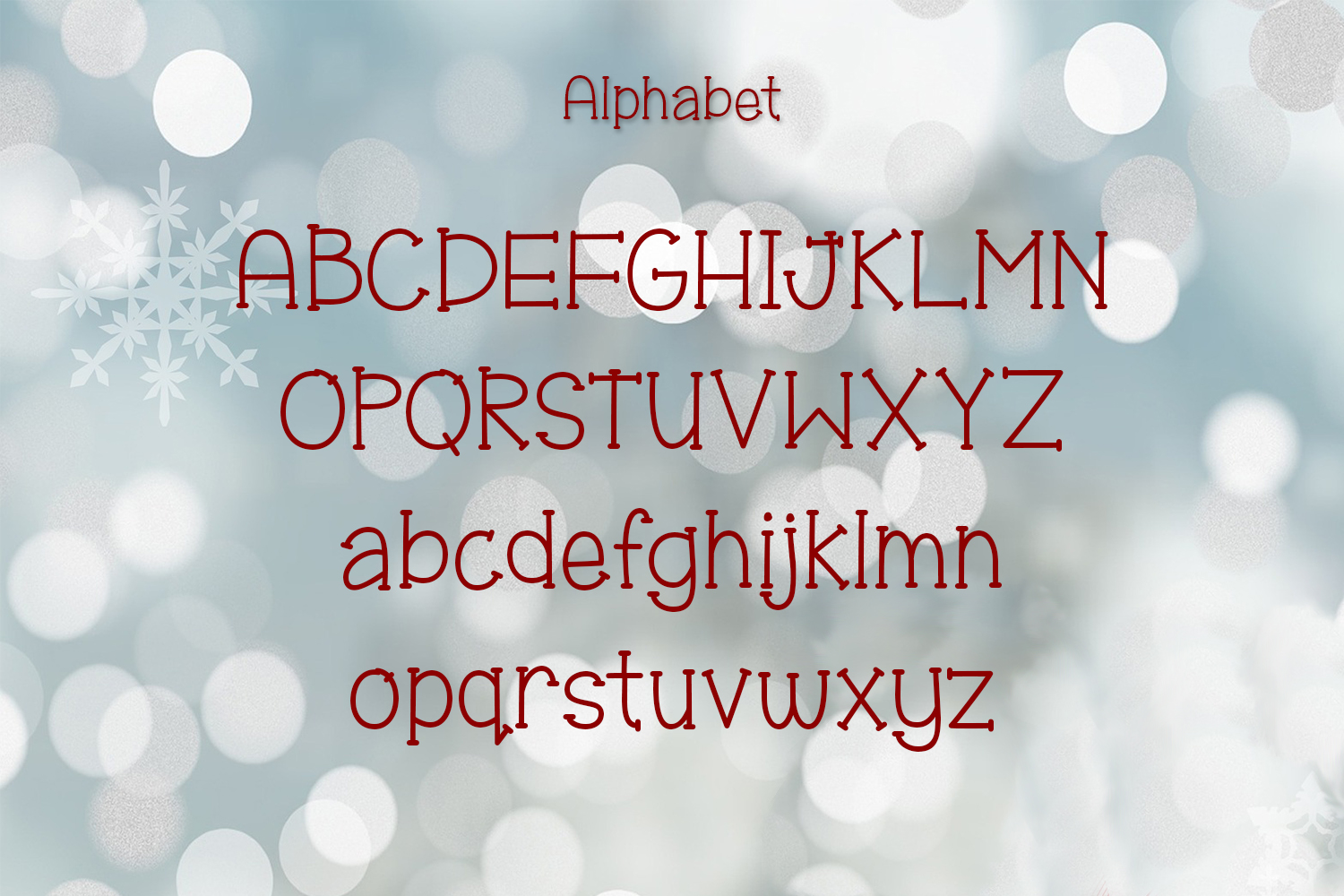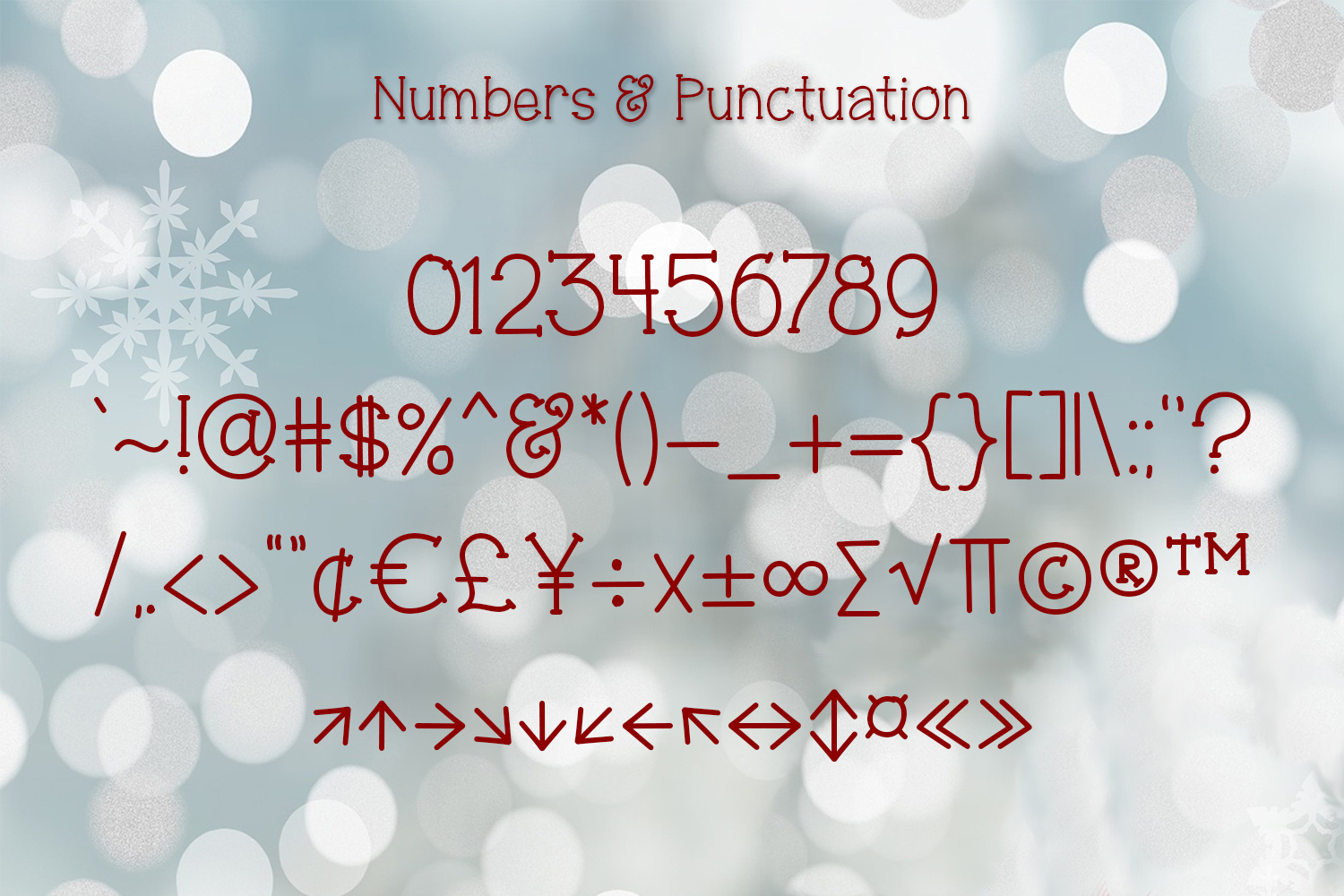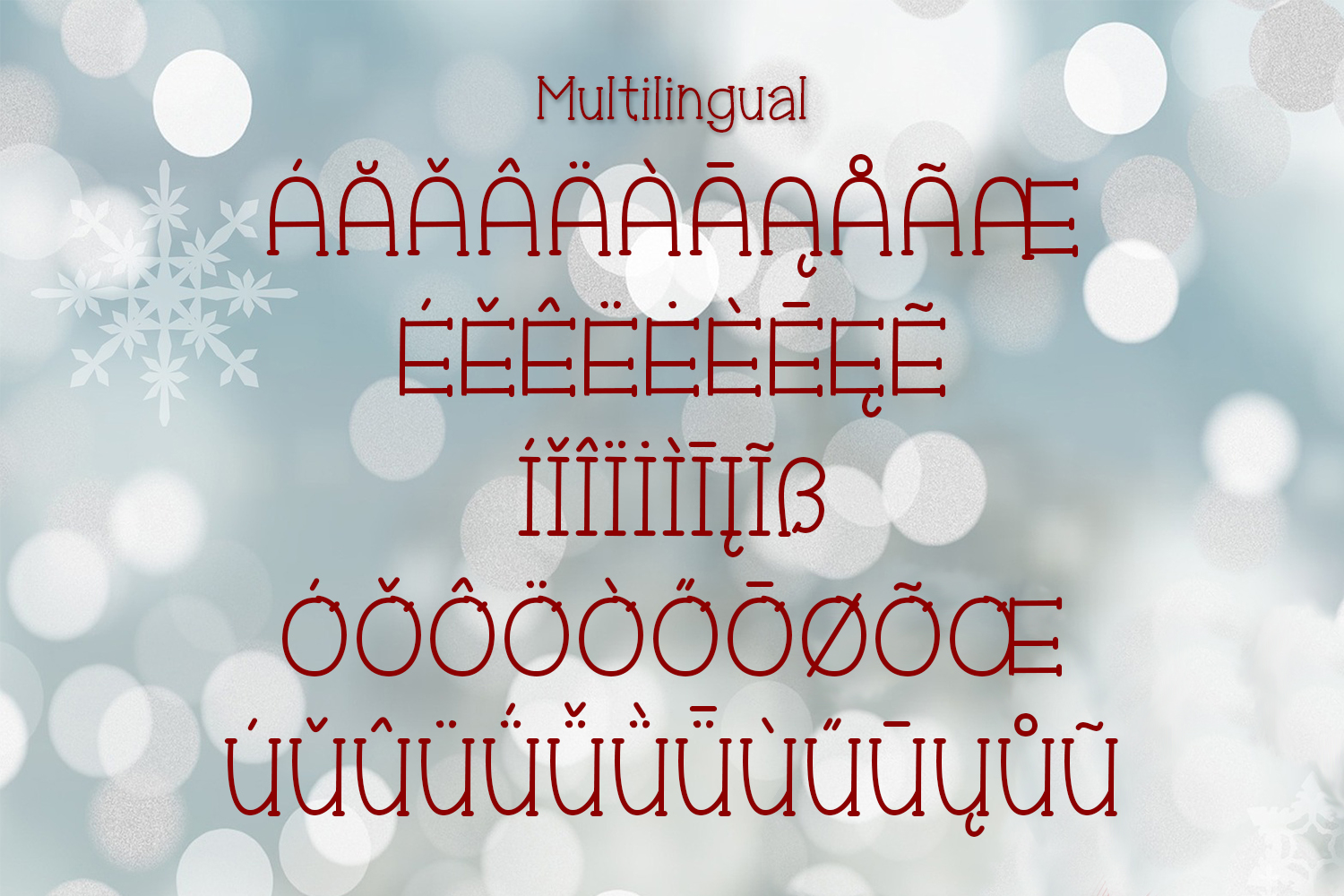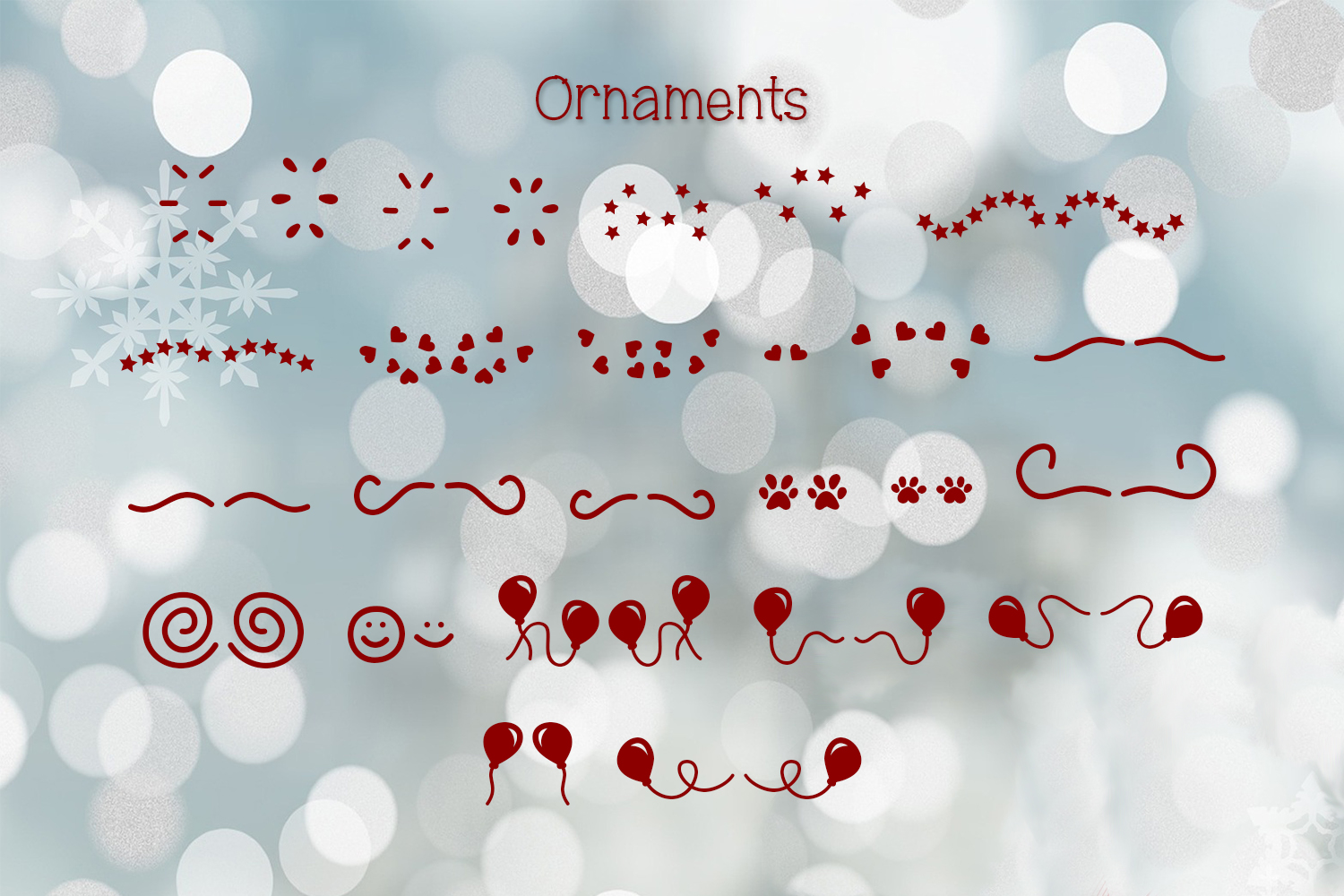
Introduction to Mila Jane Font
As a designer, there’s nothing quite like the thrill of discovering a new font that perfectly captures the essence of your creative vision. For many of us, it’s that moment when we stumble upon the perfect typography that makes all the difference between a good design and a great one. And for those who have been on the hunt for the perfect handwritten serif, we have some exciting news: meet Mila Jane Font.
This charming font is more than just a pretty face – it’s a valuable resource for designers looking to add a touch of whimsy and personality to their projects. With its rounded slab serif style, Mila Jane Font is perfect for everyday use, but it’s also a game-changer for holiday designs and creative projects that require a little extra magic. Whether you’re working on a project that calls for a transparent background or a high-quality image, Mila Jane Font is the perfect choice.
Key Features of Mila Jane Font
- High-quality design resource ideal for creative projects, including graphics, logos, and typography.
- Features a transparent background, allowing for easy layering and customization in design compositions.
- Includes a range of stylish and elegant characters, perfect for adding a touch of sophistication to designs.
- Designed with high resolution, ensuring crisp and clear display across various devices and mediums.
- Perfect for designers looking for a unique and creative font to elevate their projects and designs.
Honest Review: Mila Jane Font
I recently stumbled upon the Mila Jane Font, and I’m excited to share my thoughts on this design resource. First, let’s talk about what I liked.
- ✨ High-quality design: The font’s aesthetic is modern, clean, and visually appealing.
- ✨ Versatility: Mila Jane Font can be used for various creative projects, from branding to editorial content.
- ✨ Transparent background: This feature allows for seamless integration with any design element.
However, there are some limitations to consider.
- ⚠️ Limited font styles: The Mila Jane Font only comes in a few styles, which might limit its use in certain projects.
- ⚠️ No bold or italic options: While the font is clean and modern, the lack of bold or italic options might make it less suitable for certain design applications.
Overall, the Mila Jane Font is a solid addition to any designer’s toolkit. While it has some limitations, its high-quality design and free download make it a great choice for creative projects. With a little creativity, you can work around its limitations and achieve amazing results.
Mila Jane Font
The Mila Jane Font is a high-quality, free design resource ideal for creative projects. With its transparent background, this font is perfect for adding a touch of elegance to your designs.
The Mila Jane Font is perfect for creating invitations, greeting cards, and other creative projects. Its elegant and sophisticated design makes it ideal for weddings, baby showers, and other special occasions.
Tips for Getting the Most Out of Mila Jane Font
To get the most out of Mila Jane Font, use it in combination with other design elements, such as images and graphics, to create a visually appealing design. Experiment with different font sizes and styles to add depth and interest to your design.